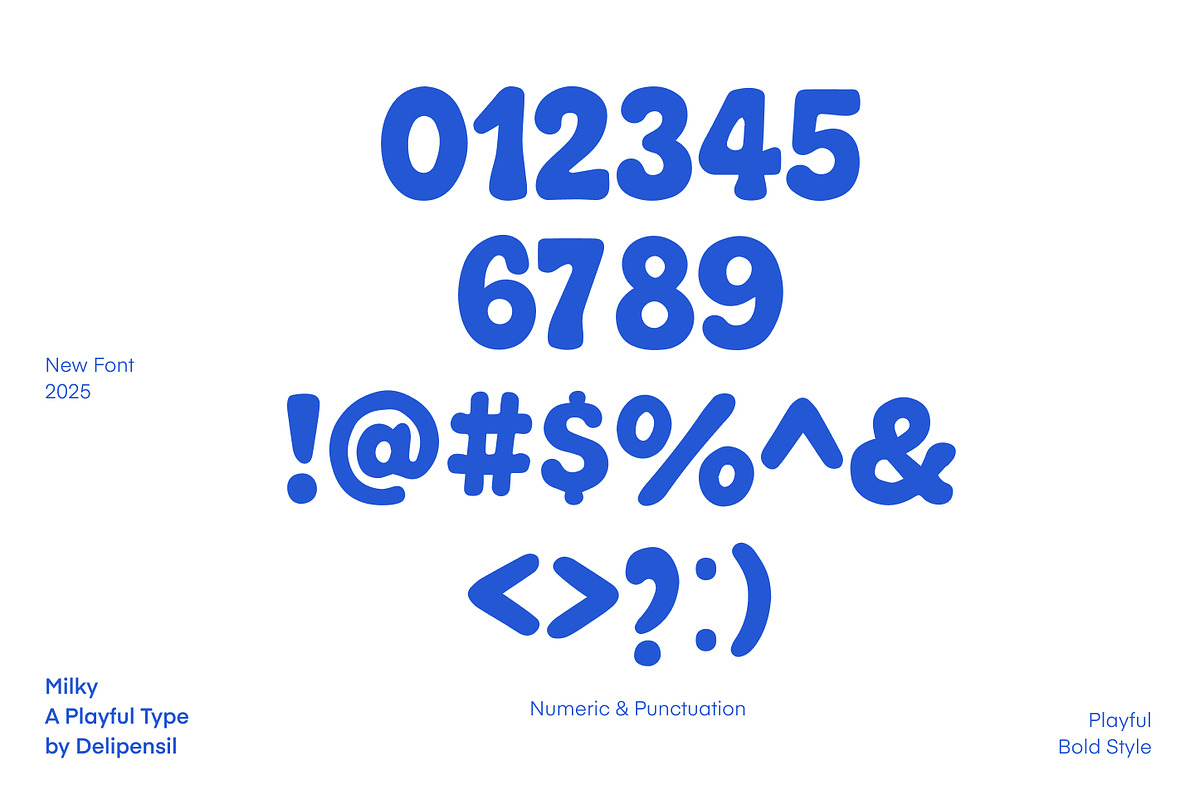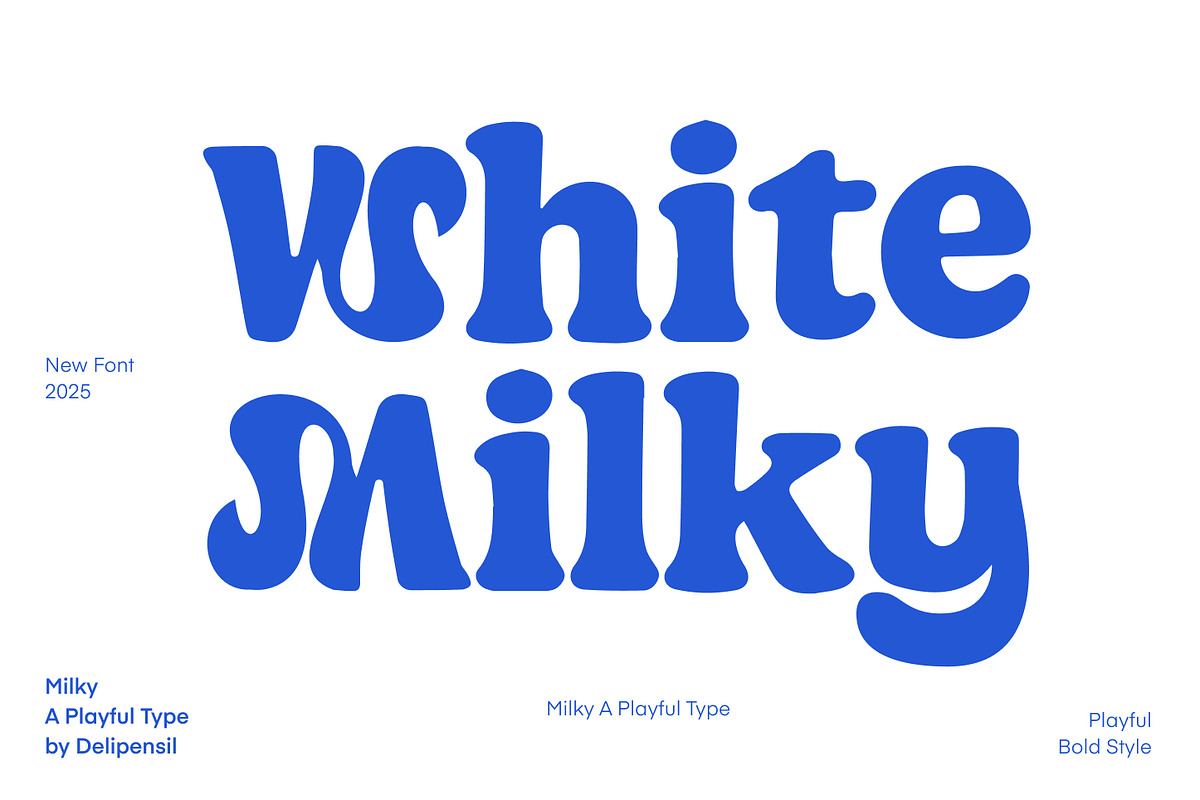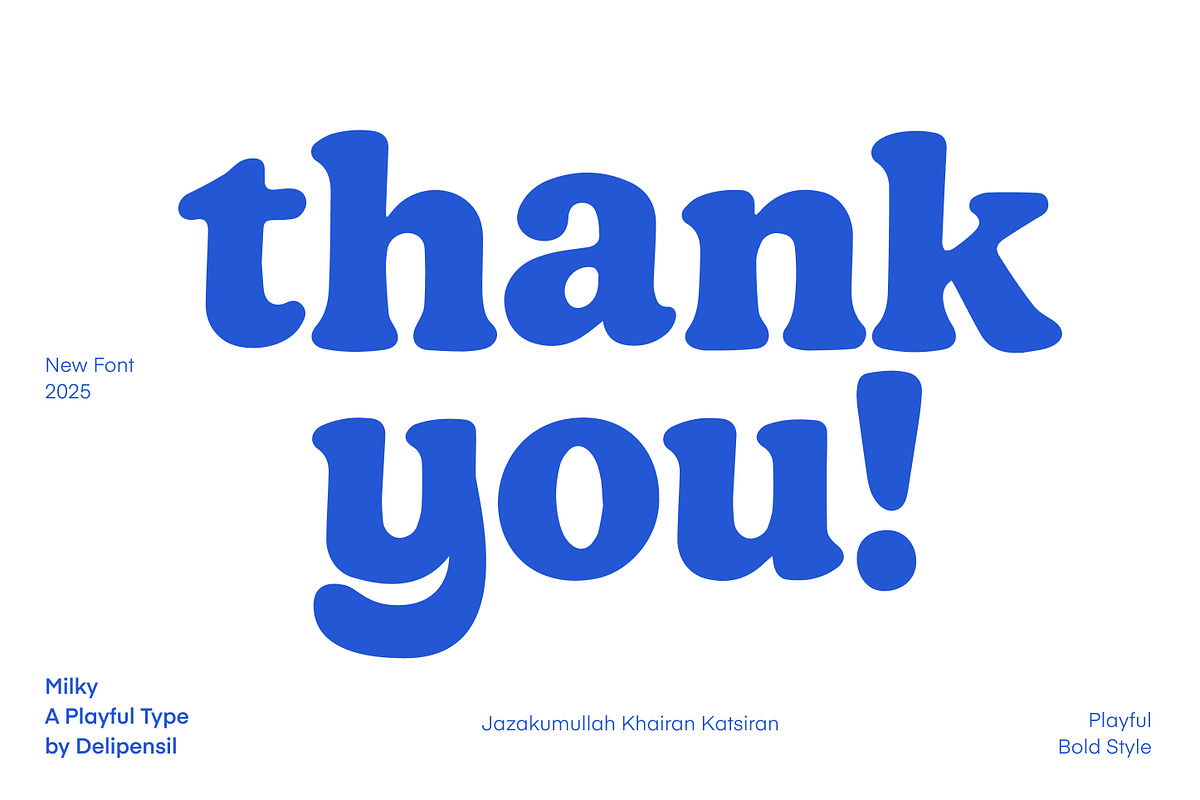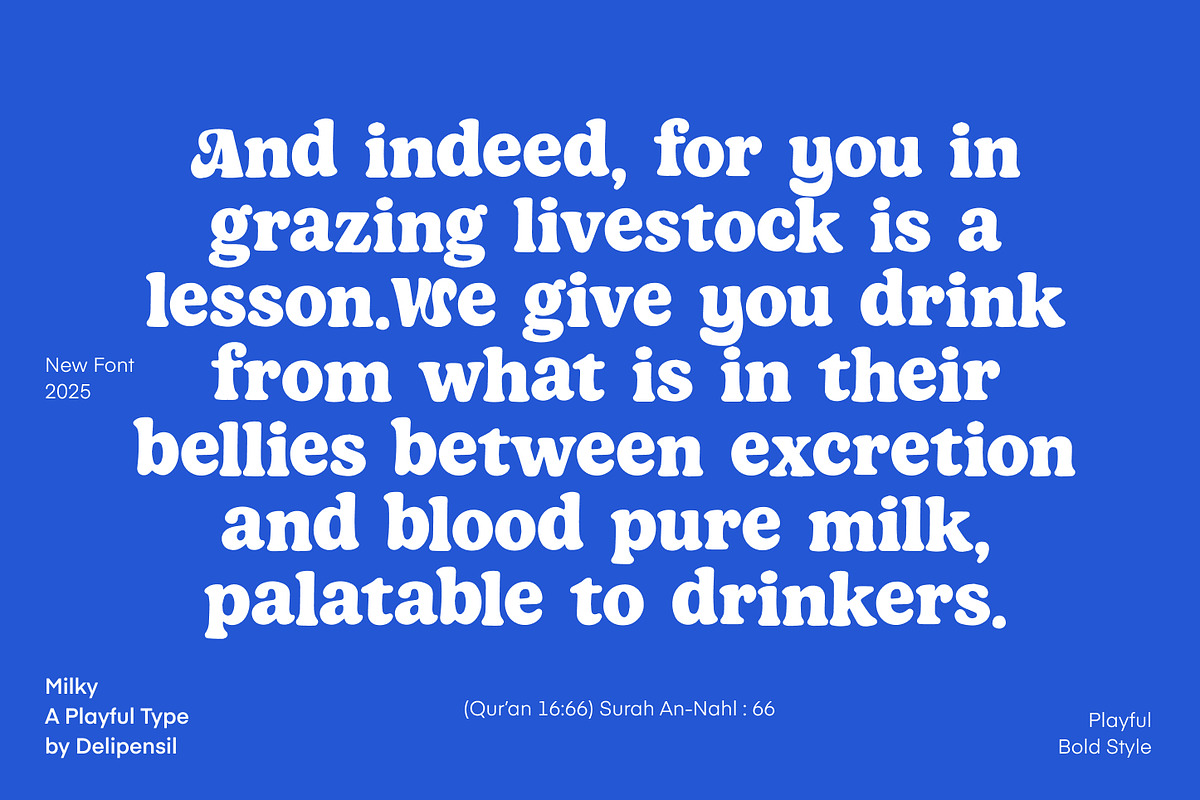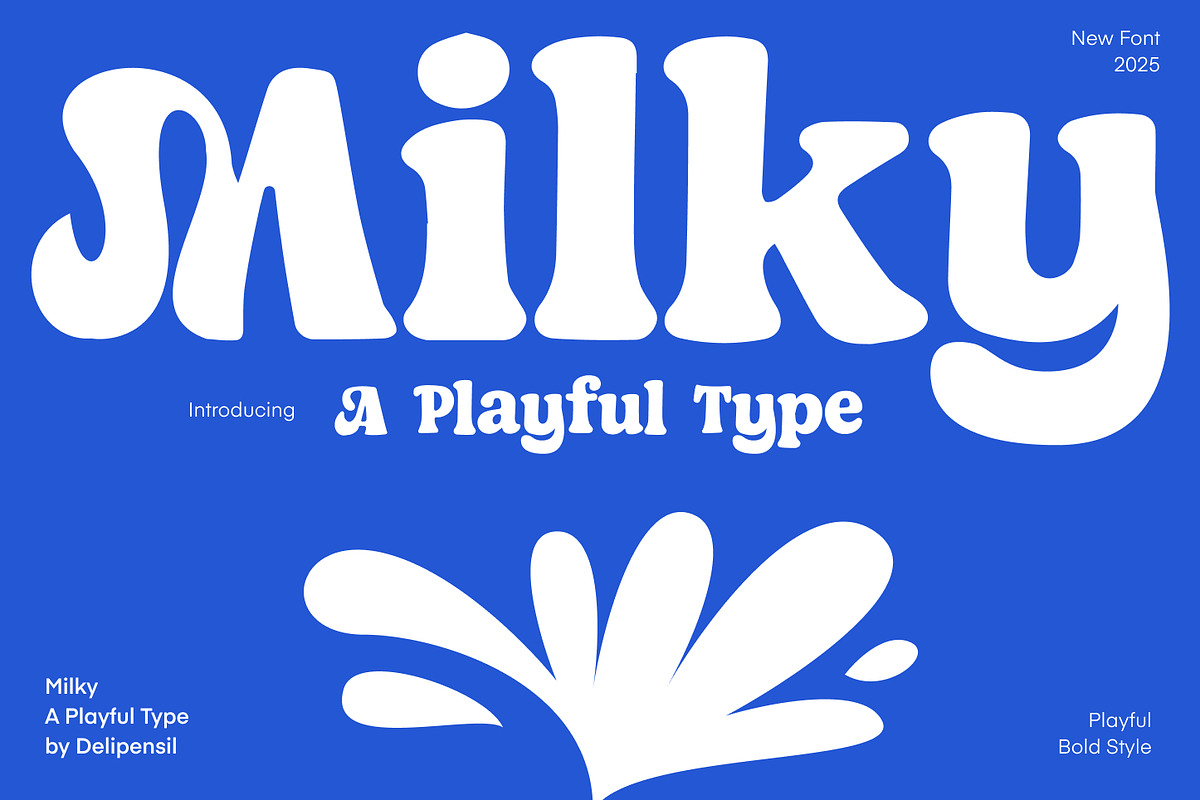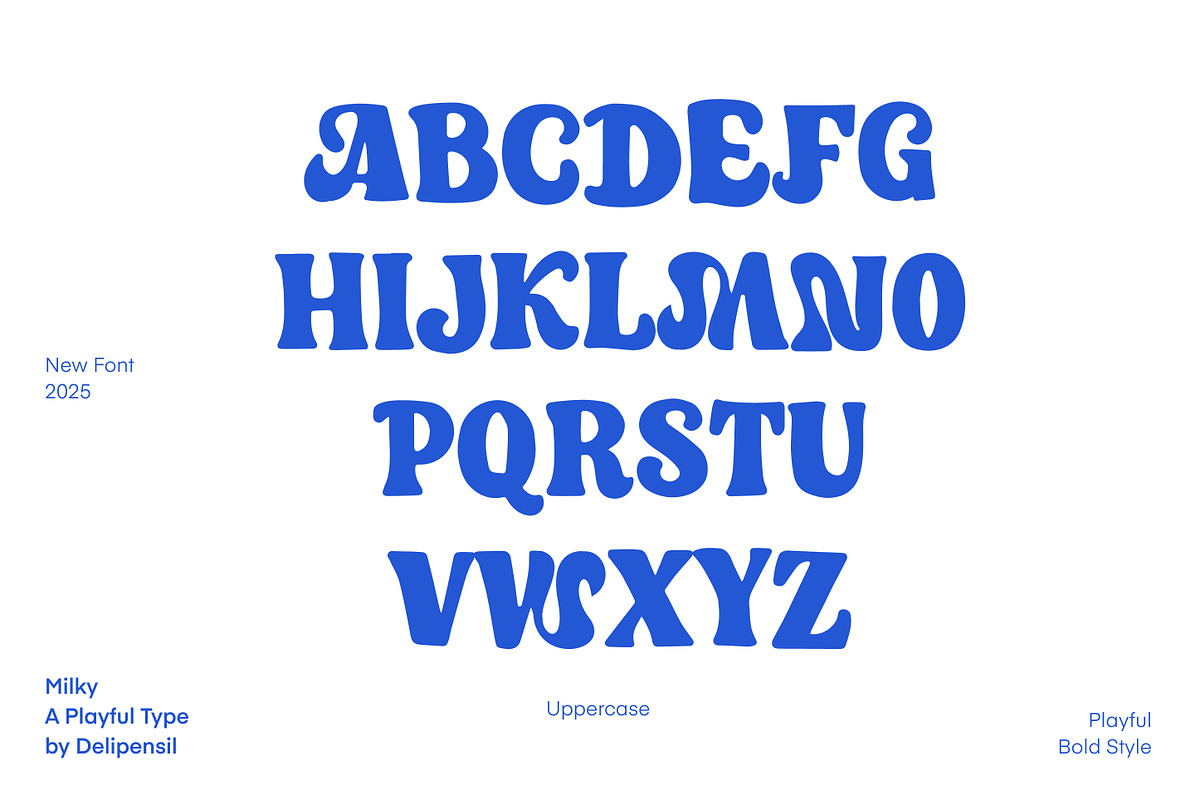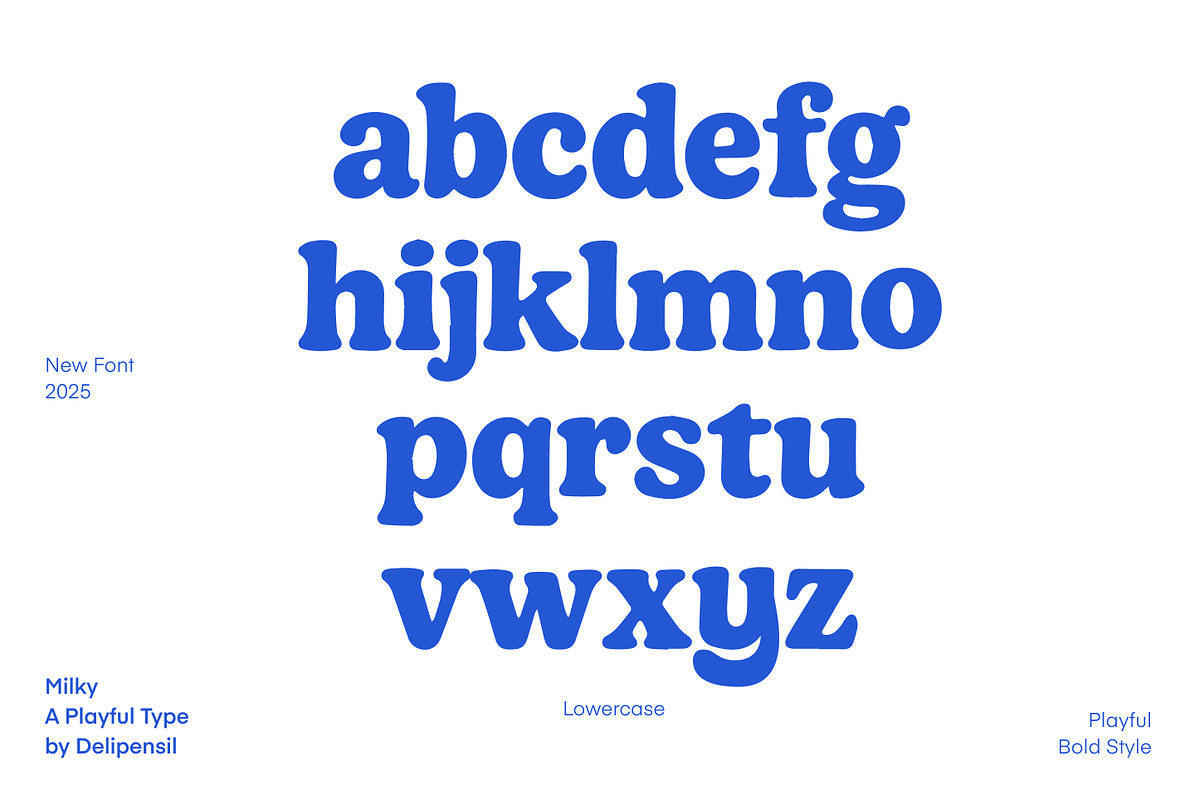
Milky - A Playful Type
Bismillah - Milky – Playful Decorative Font
Introduction - Milky is a bold and bubbly decorative font crafted with soft rounded shapes and a cheerful, playful character. Each letter is designed to feel fun, friendly, and eye-catching, making it perfect for creative projects that need a cute and lively touch.
This font works beautifully for kids and baby designs, playful branding, snack packaging, social media posts, invitations, merchandise, and any headline that needs a happy and energetic personality.